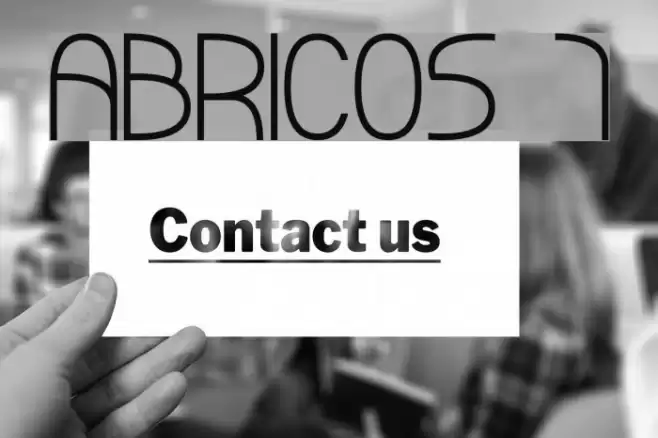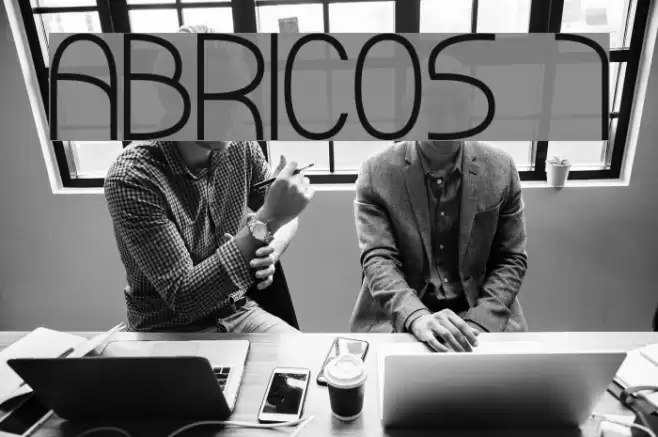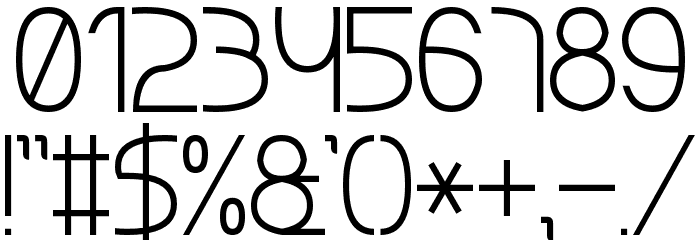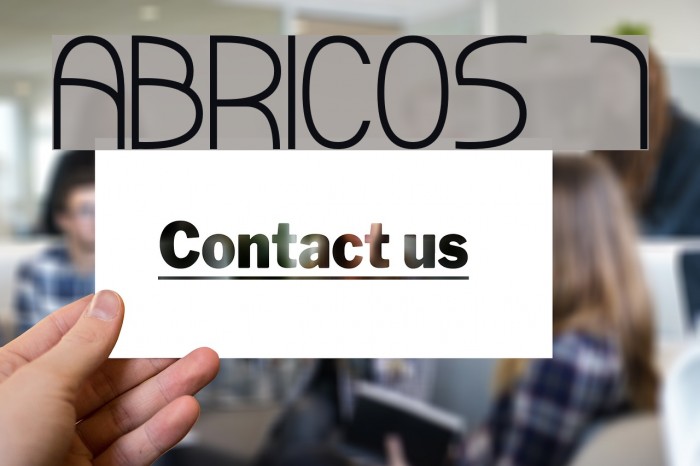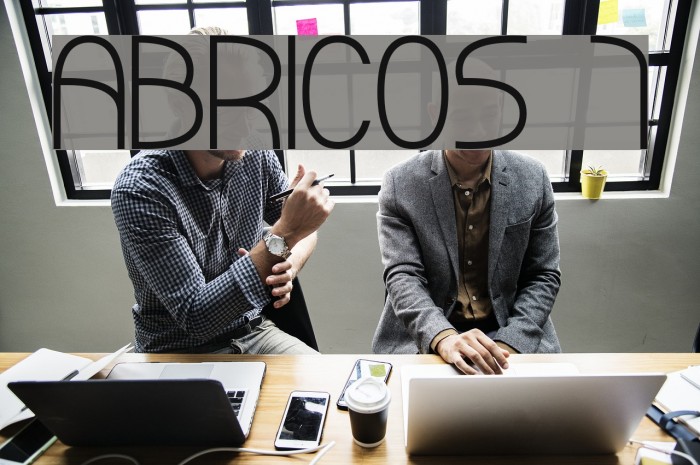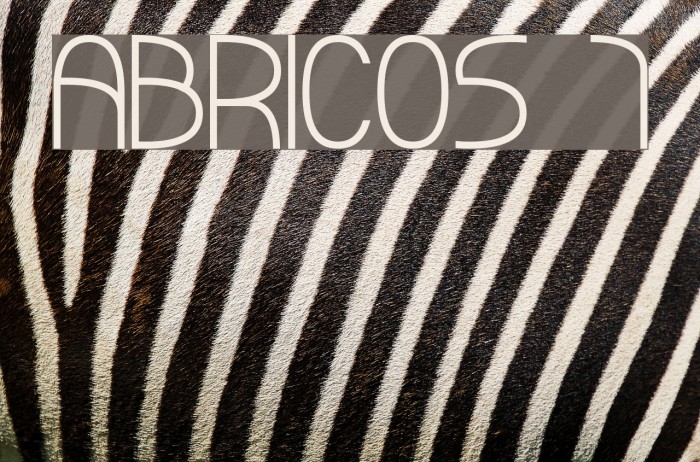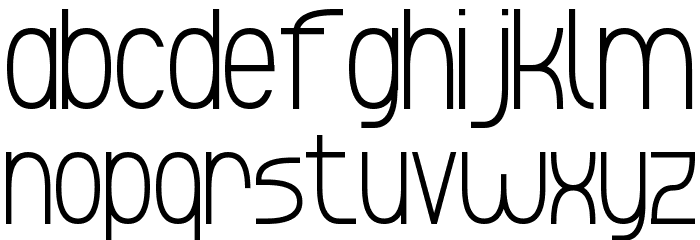
ABRICOS 7 Font
ABRICOS 7 Description
This font features a modern and geometric design with clean, rounded edges and a consistent stroke width. The characters are constructed with a minimalist approach, emphasizing simplicity and readability. The uppercase letters are slightly taller than the lowercase, maintaining a uniform width throughout. The numerals and special characters follow the same design principles, ensuring a cohesive appearance. This font is versatile, suitable for both digital and print media, and can be used to convey a contemporary and professional tone.
A modern, geometric font with clean, rounded edges and consistent stroke width from Uncategorized fonts.
- Proposed Projects: Ideal for branding, web design, advertising, and editorial layouts.